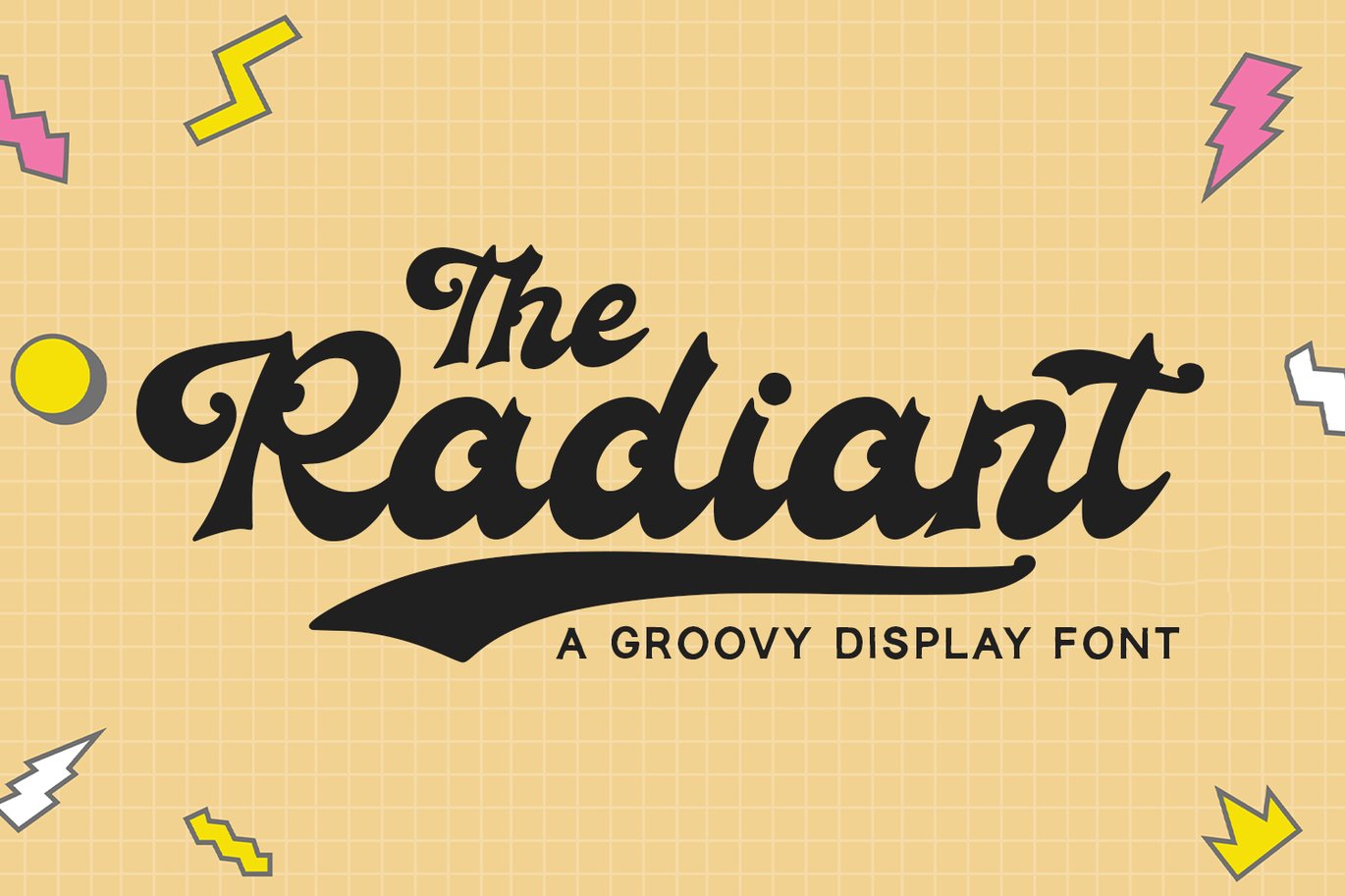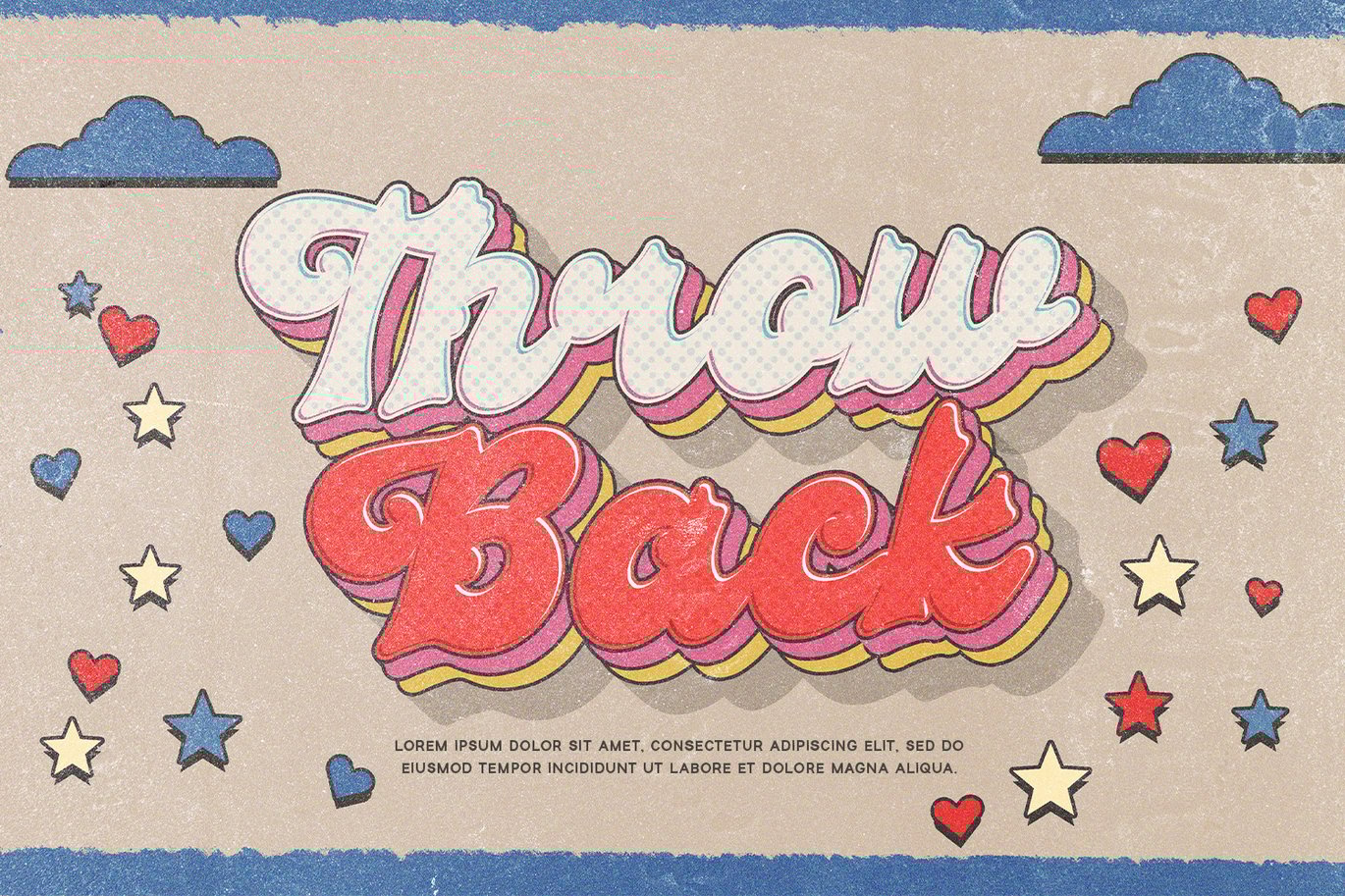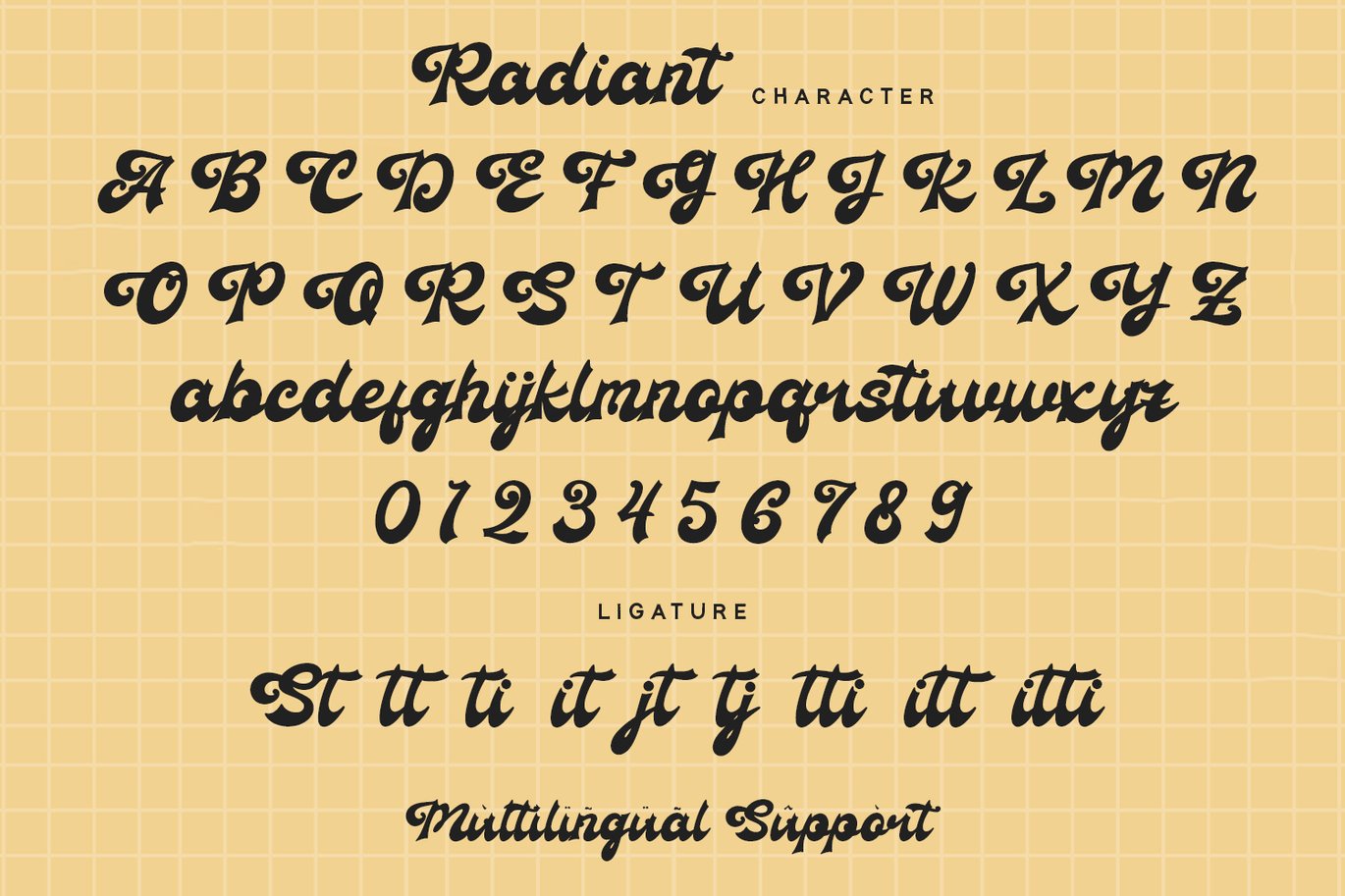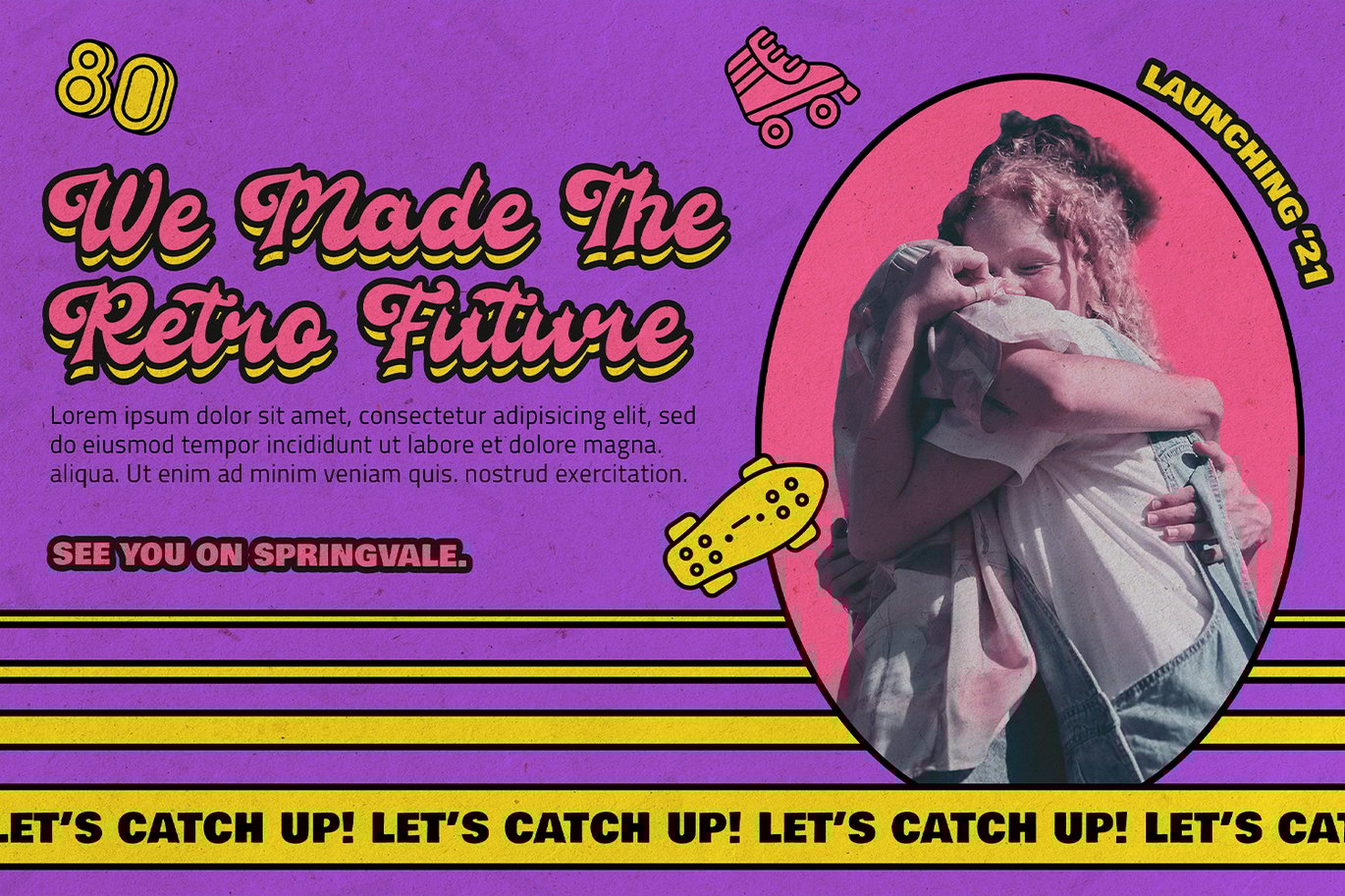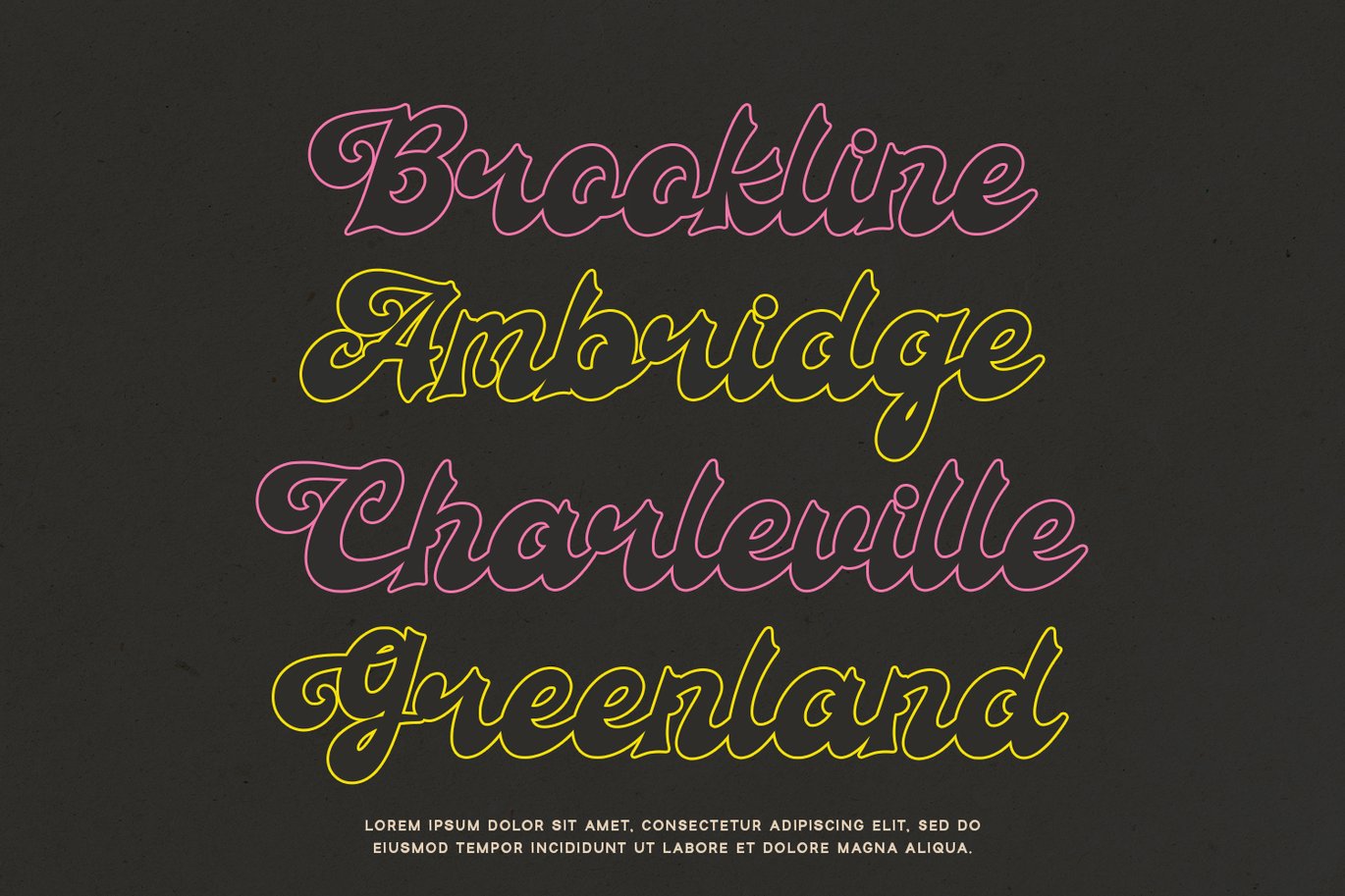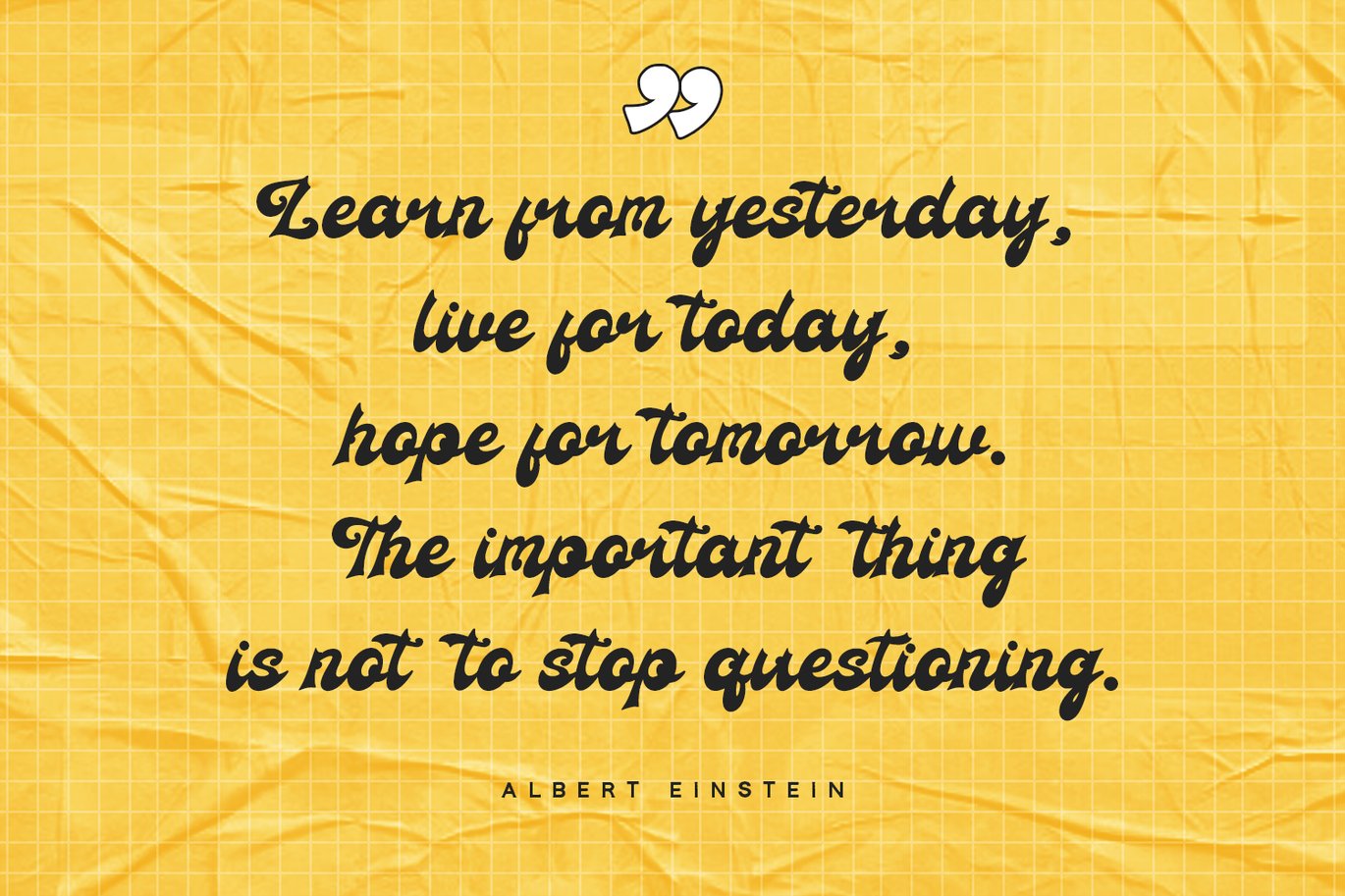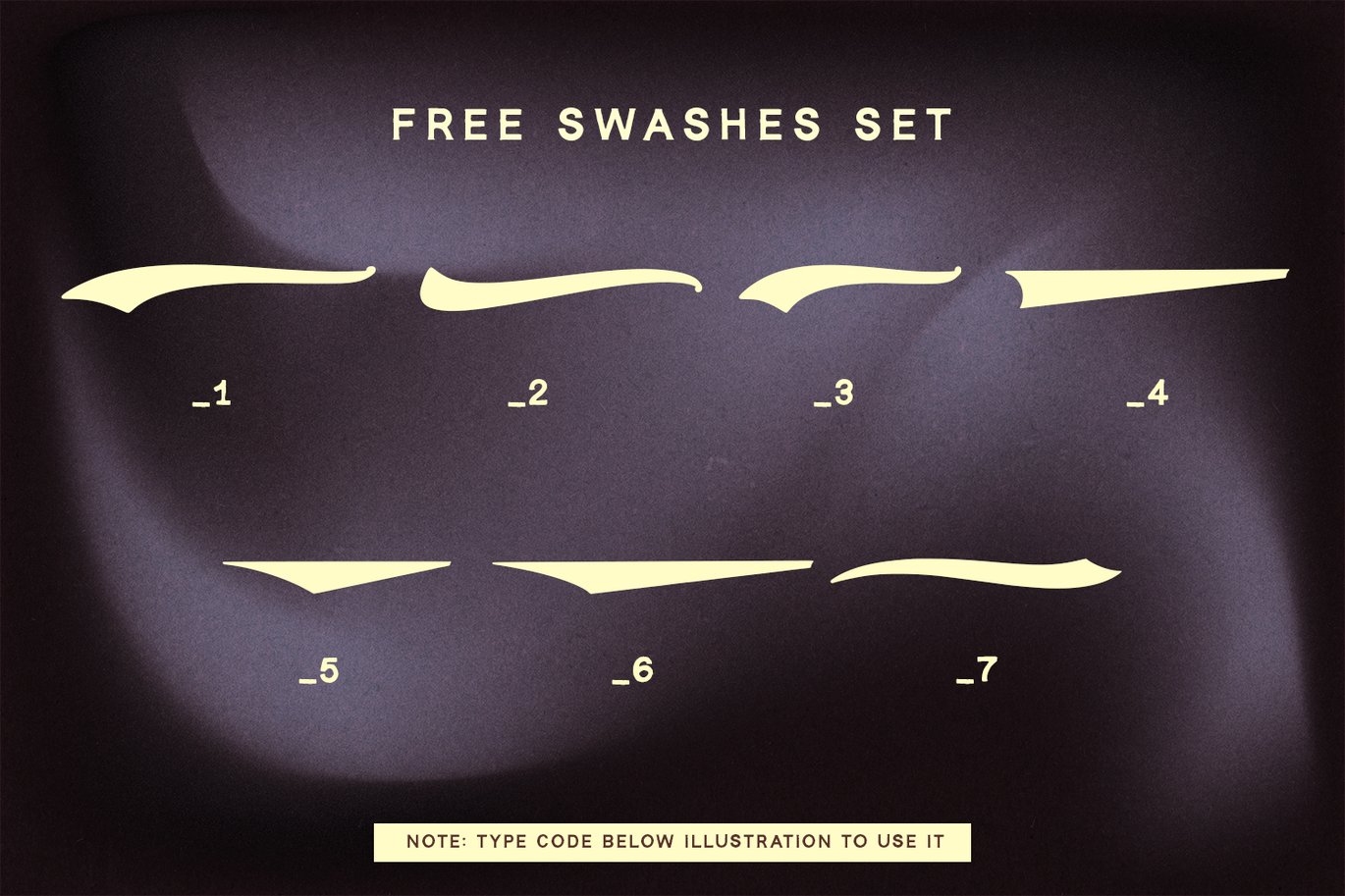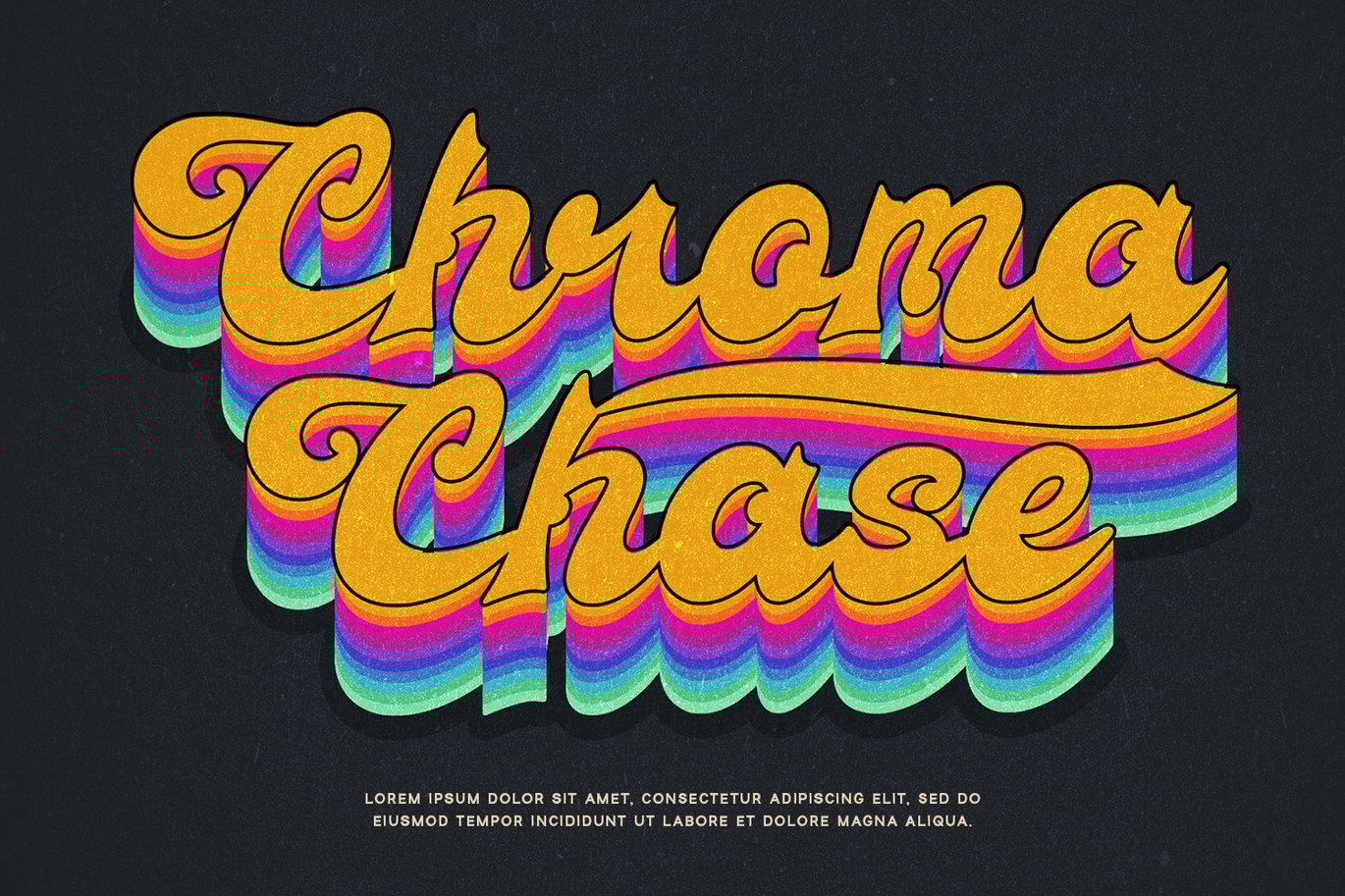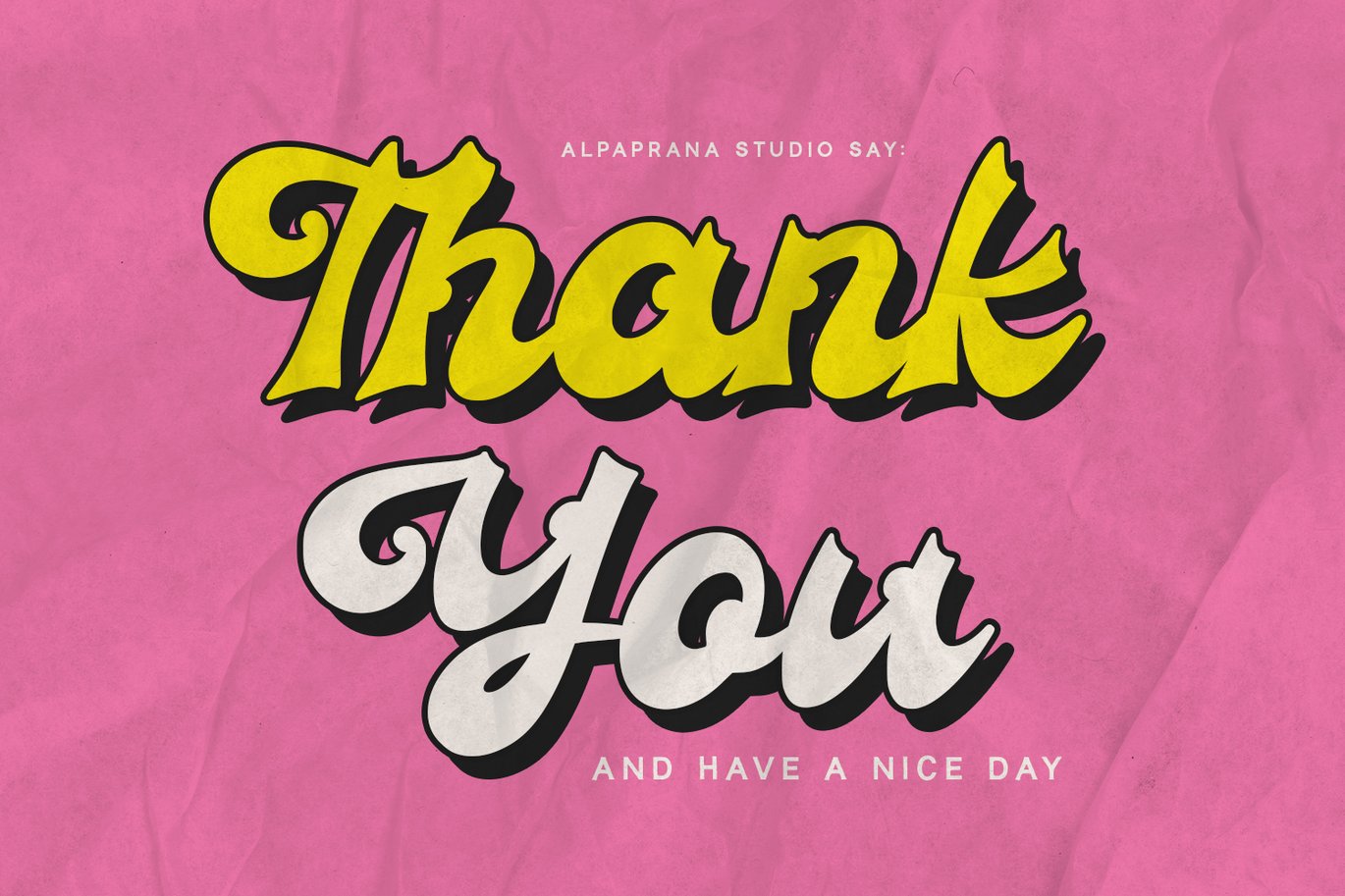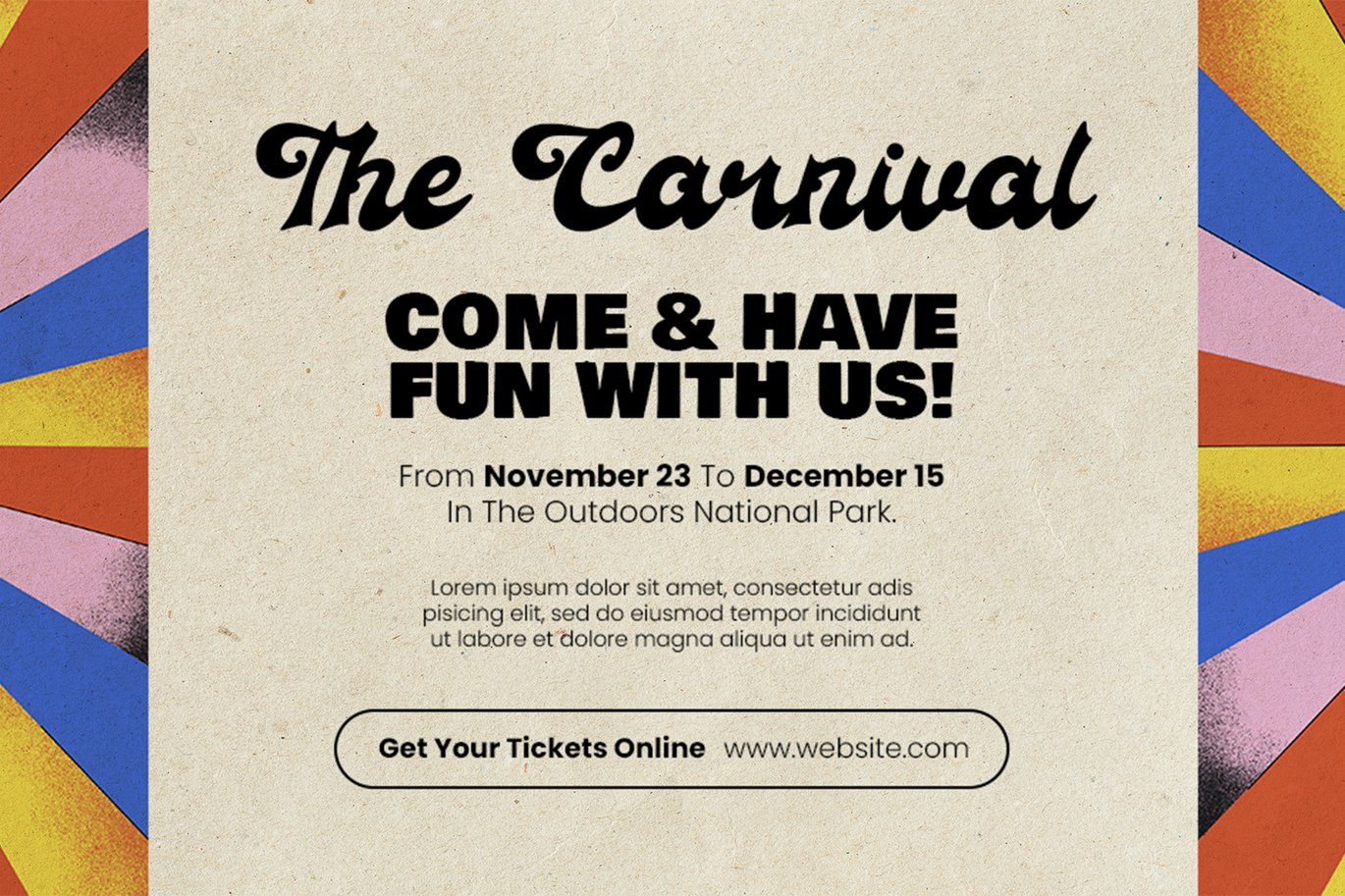
Radiant – Groovy Font
Radiant is a groovy script font with authentic and classic feels.
- Numerals
- Punctuations (OpenType Standard)
- Accents (Multilingual Characters)
- Ligatures and Alternative Style Stylistic Set